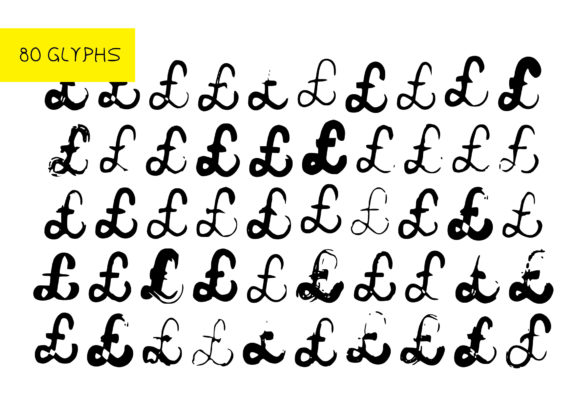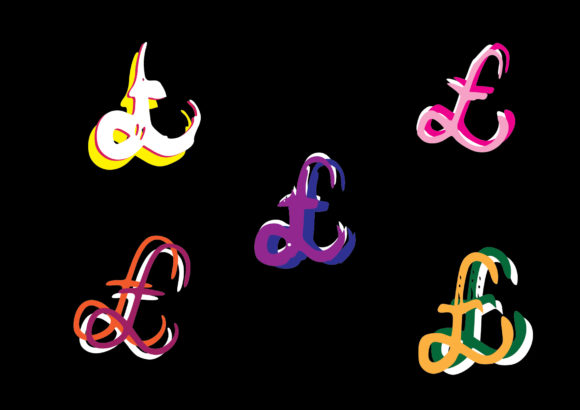
About BM Graphics – Pound Symbol Font
The Pound Symbol dingbats font sounds like a versatile and useful tool for your design projects. Here are some ideas on how you can utilize this font effectively:
1. Financial and Business Projects: The Pound Symbol glyphs can be particularly useful for financial and business-related projects. Use them to create currency symbols, pricing information, or to highlight monetary values in reports, presentations, or financial documents.
2. Web and App Design: Incorporate the Pound Symbol glyphs into your website or app interfaces. They can be used as icons for currency conversion, payment options, or to represent financial transactions. The consistent and recognizable style of the glyphs will add a professional touch to your design.
3. Infographics and Data Visualization: If you’re working on infographics or data visualizations, the Pound Symbol dingbats font can come in handy. Use the glyphs to represent monetary values or as graphical elements in charts and graphs, providing a clear and concise representation of financial data.
4. Signage and Labels: Create eye-catching signage and labels using the Pound Symbol glyphs. Whether it’s for price tags, promotions, or information boards, these symbols can help draw attention to important details and add a touch of professionalism to your signage.
5. Marketing and Advertising: Incorporate the Pound Symbol glyphs into your marketing materials, such as flyers, posters, or social media graphics. They can be used to highlight discounts, pricing information, or to create visual impact in your advertising campaigns.
6. Editorial and Publishing: If you’re working on editorial or publishing projects, the Pound Symbol font can be useful for indicating currency values in articles, books, or magazines. It ensures consistency and clarity in presenting financial information to readers.
Remember to consider the context and purpose of your project when using the Pound Symbol dingbats font. By utilizing these glyphs effectively, you can enhance the visual appeal and professionalism of your designs while conveying important monetary information.